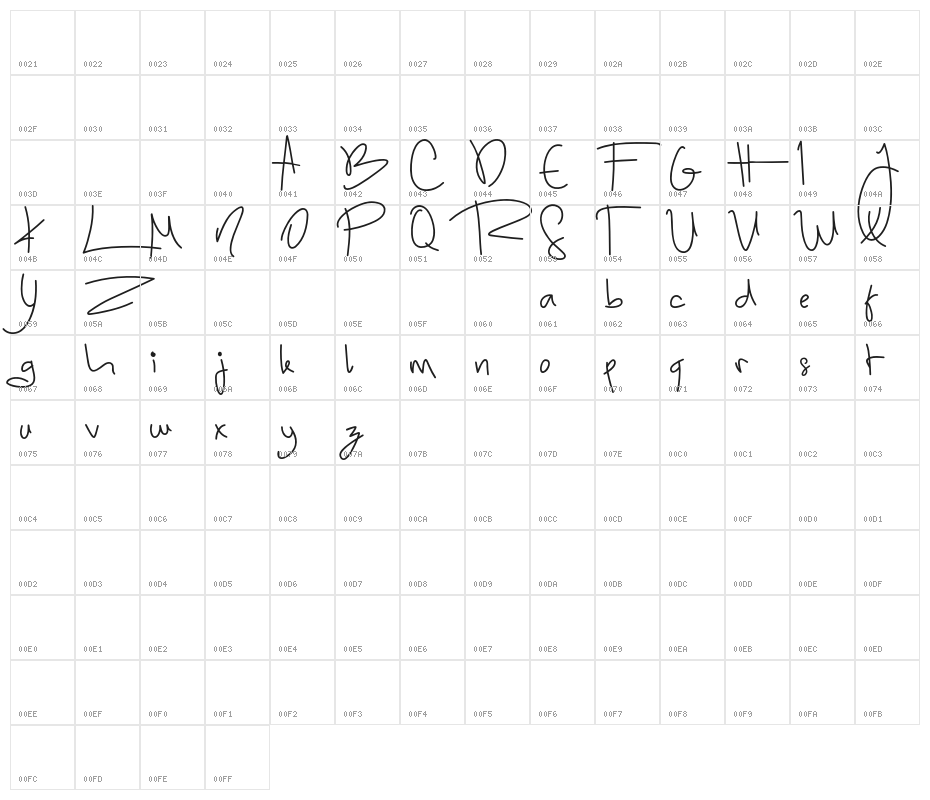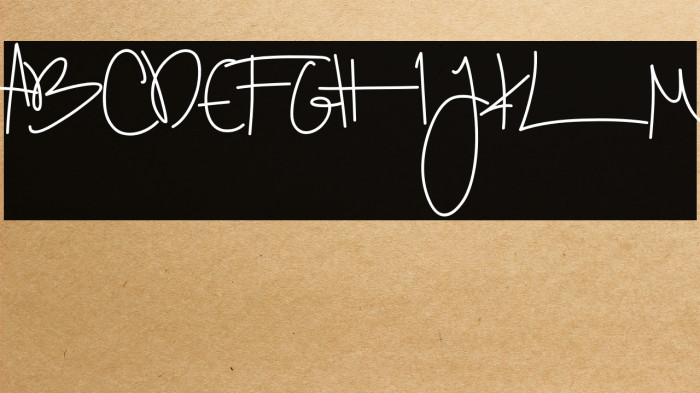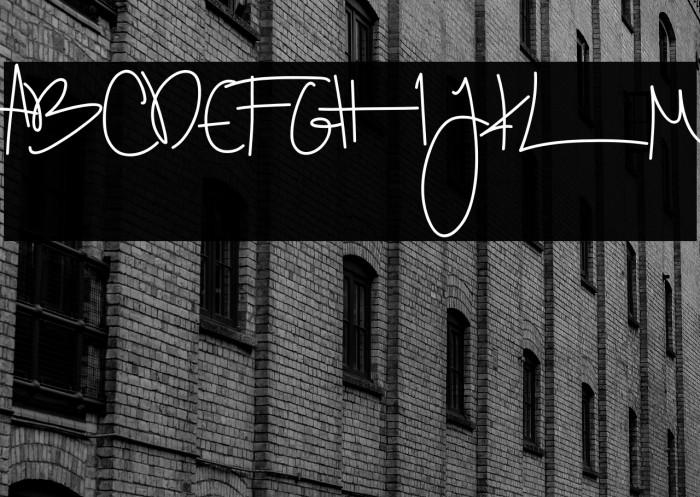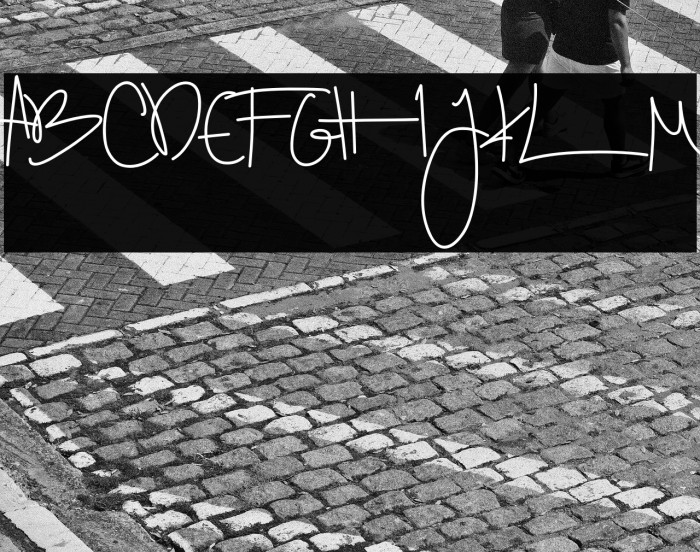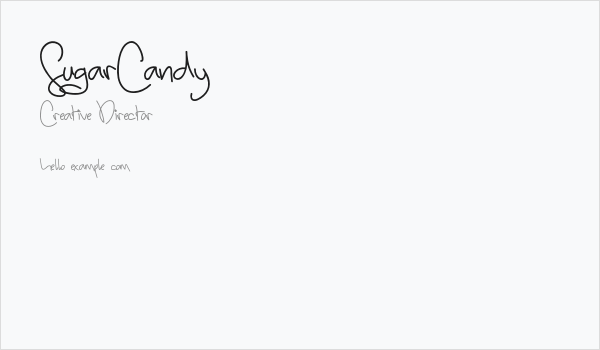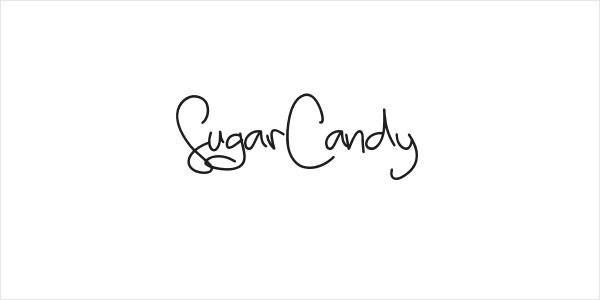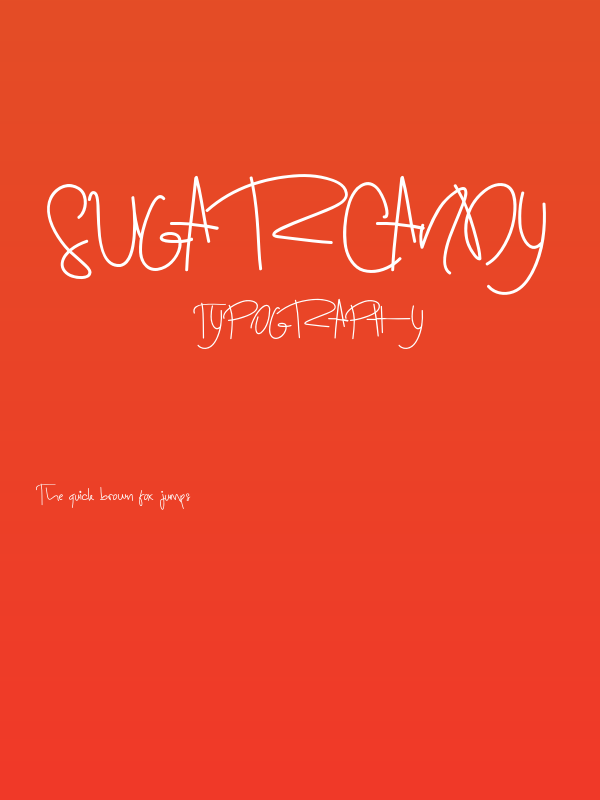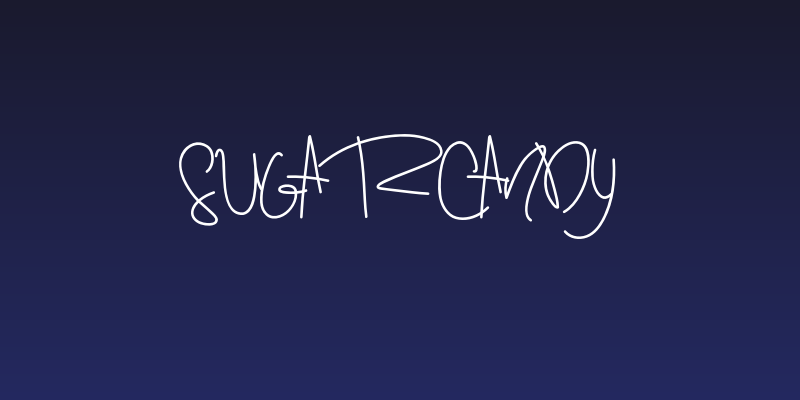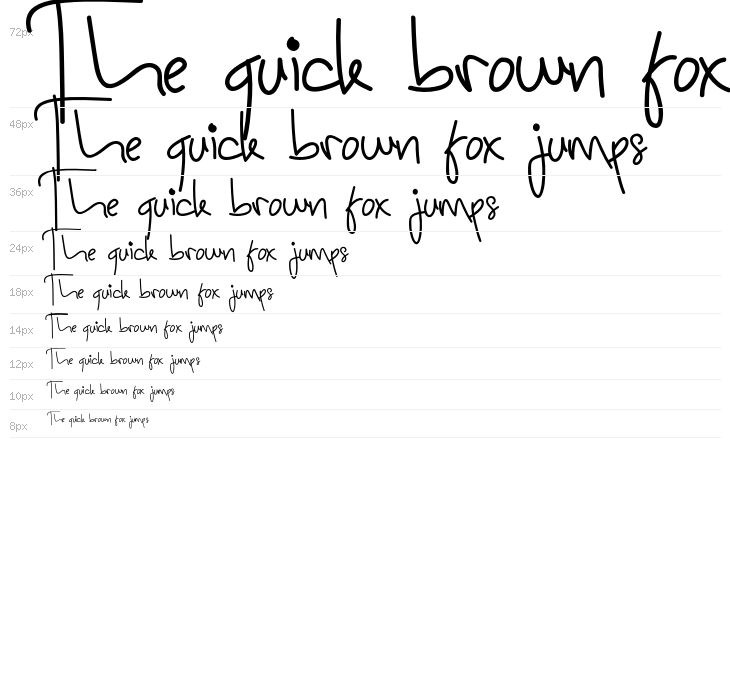
SugarCandy Font
SugarCandy Description
This font features a playful and whimsical handwritten style, characterized by its fluid and dynamic strokes. The uppercase letters are tall and slender, with a slight slant that adds to the casual feel. The lowercase letters are more rounded and compact, maintaining a consistent flow throughout. The numbers and special characters follow the same lively design, making the font versatile for various creative applications. Its unique style is perfect for projects that require a personal and informal touch, such as greeting cards, invitations, and playful branding.